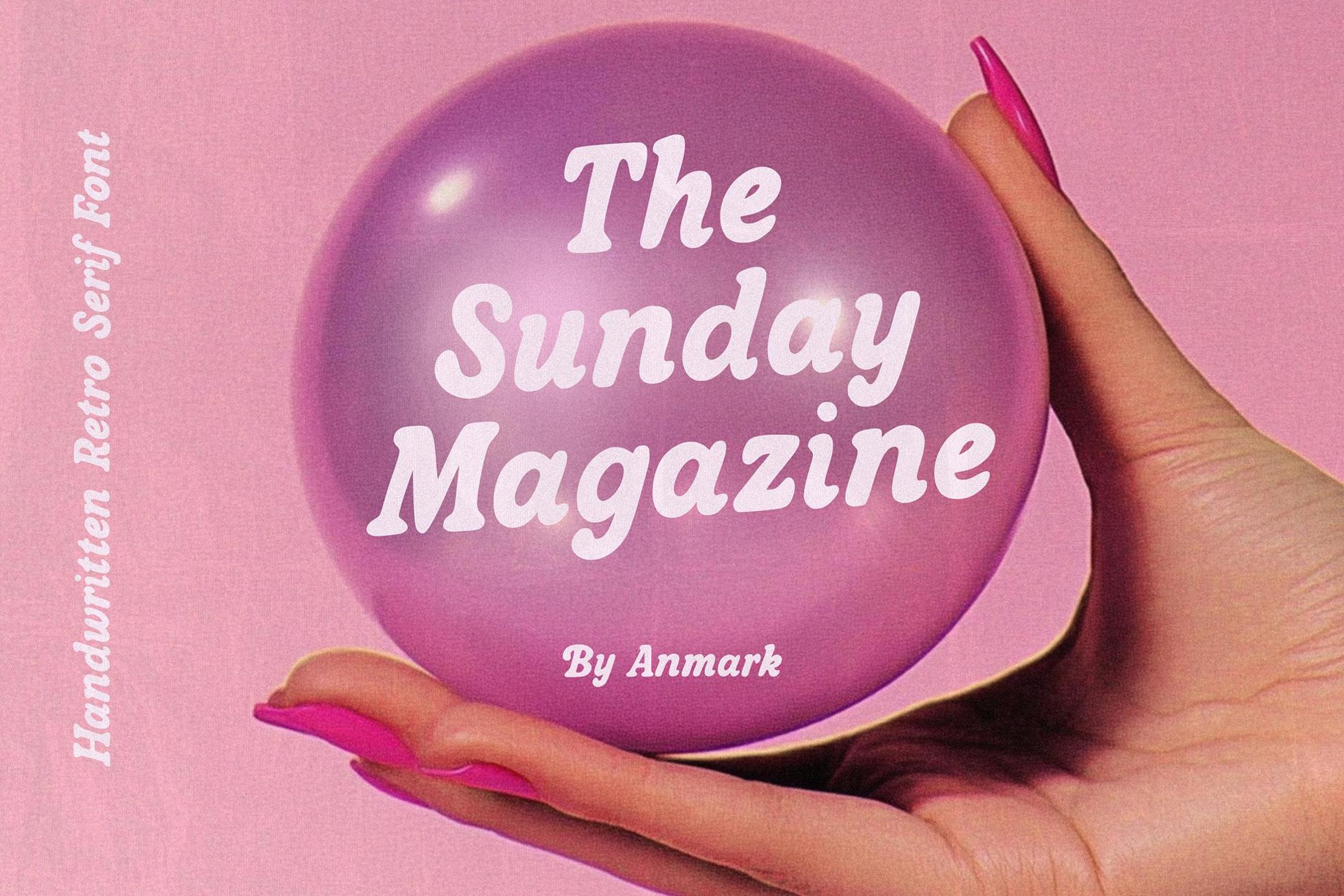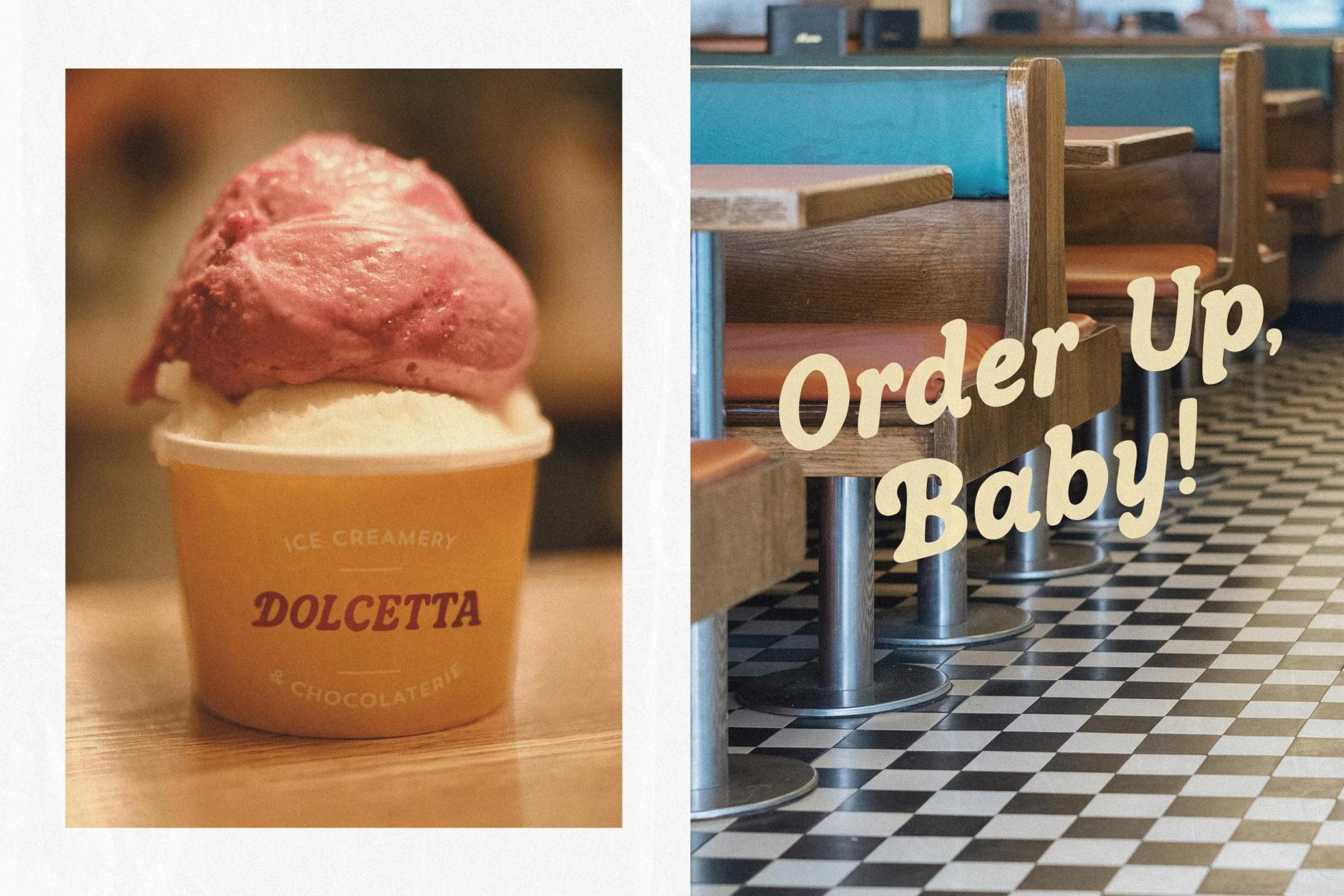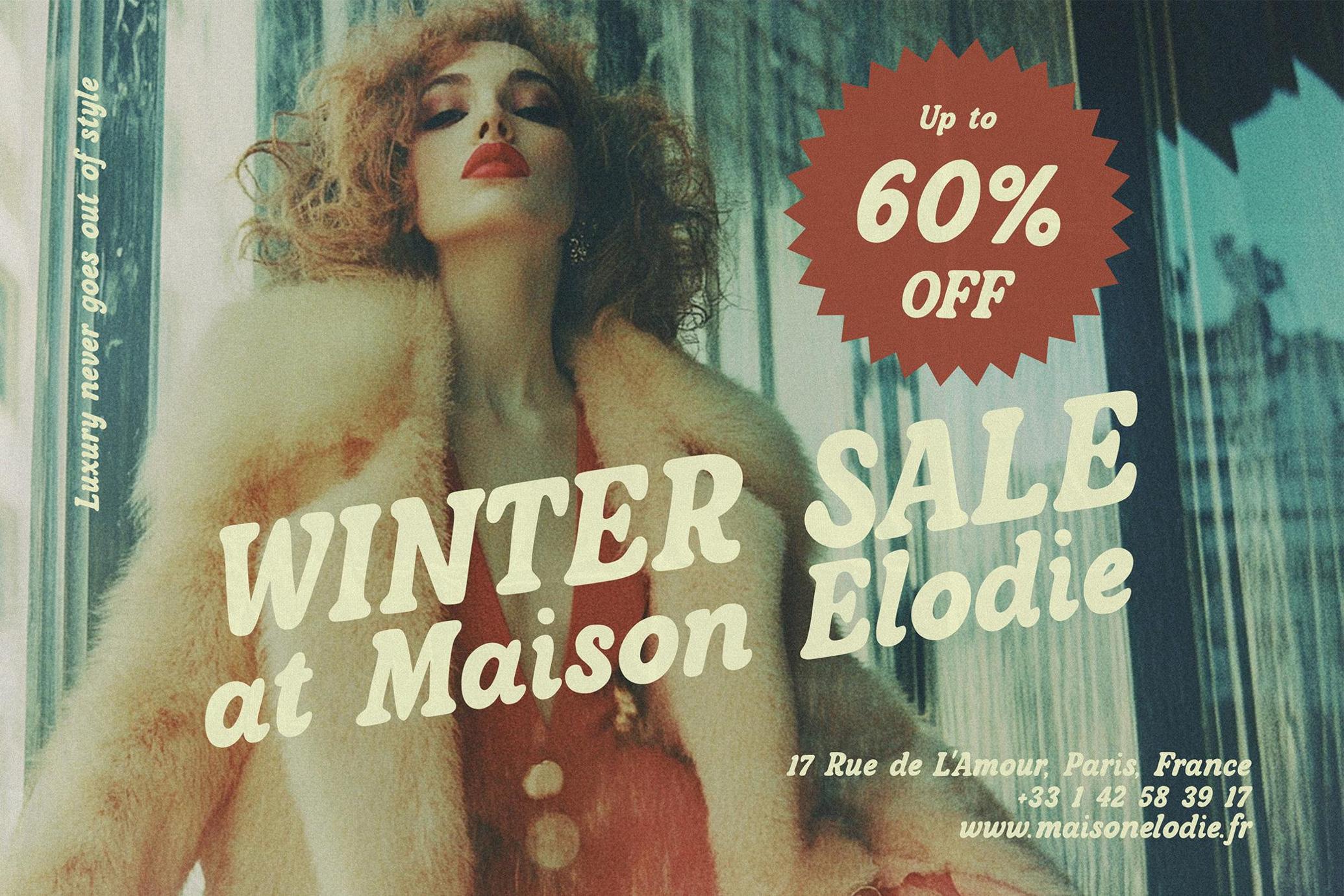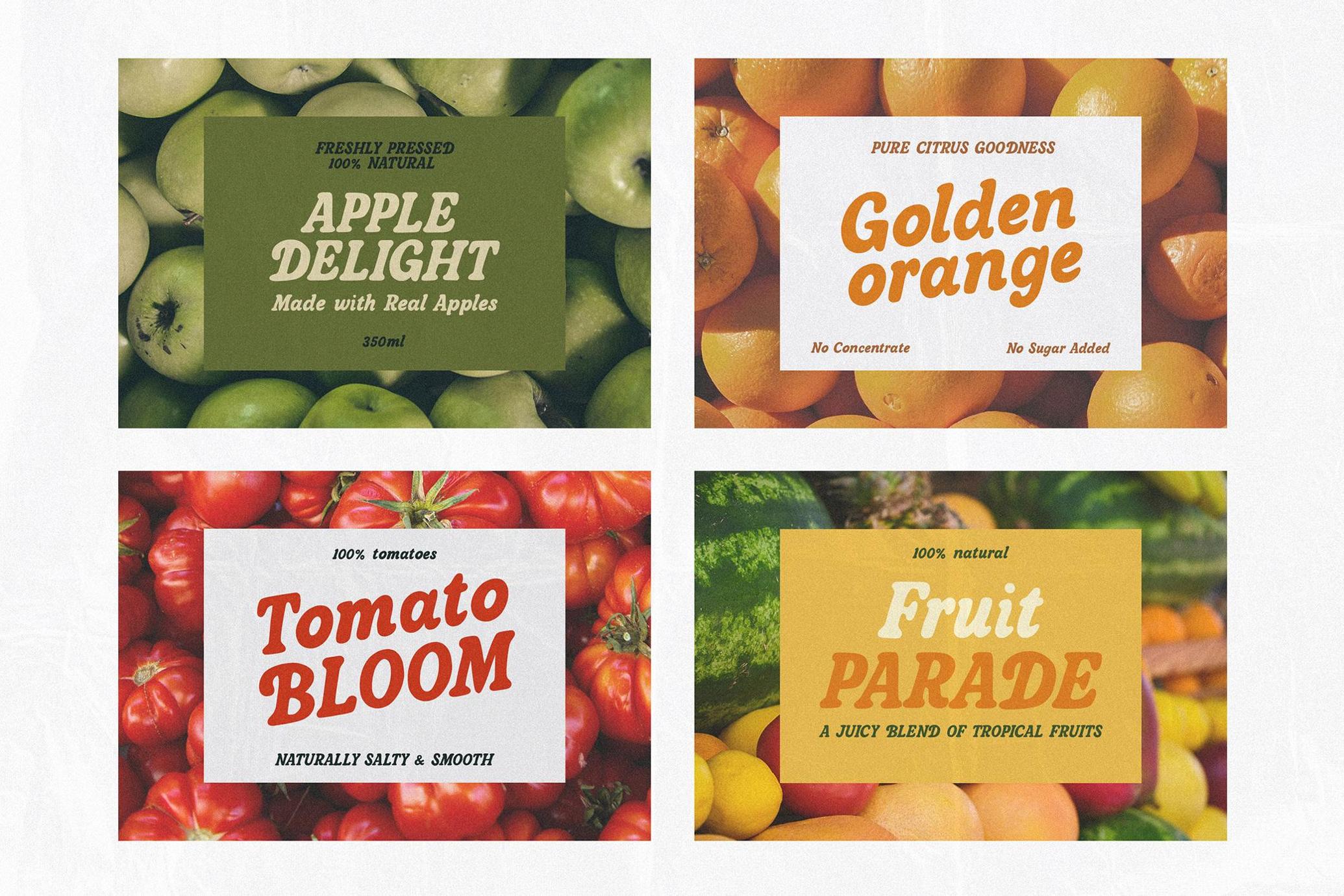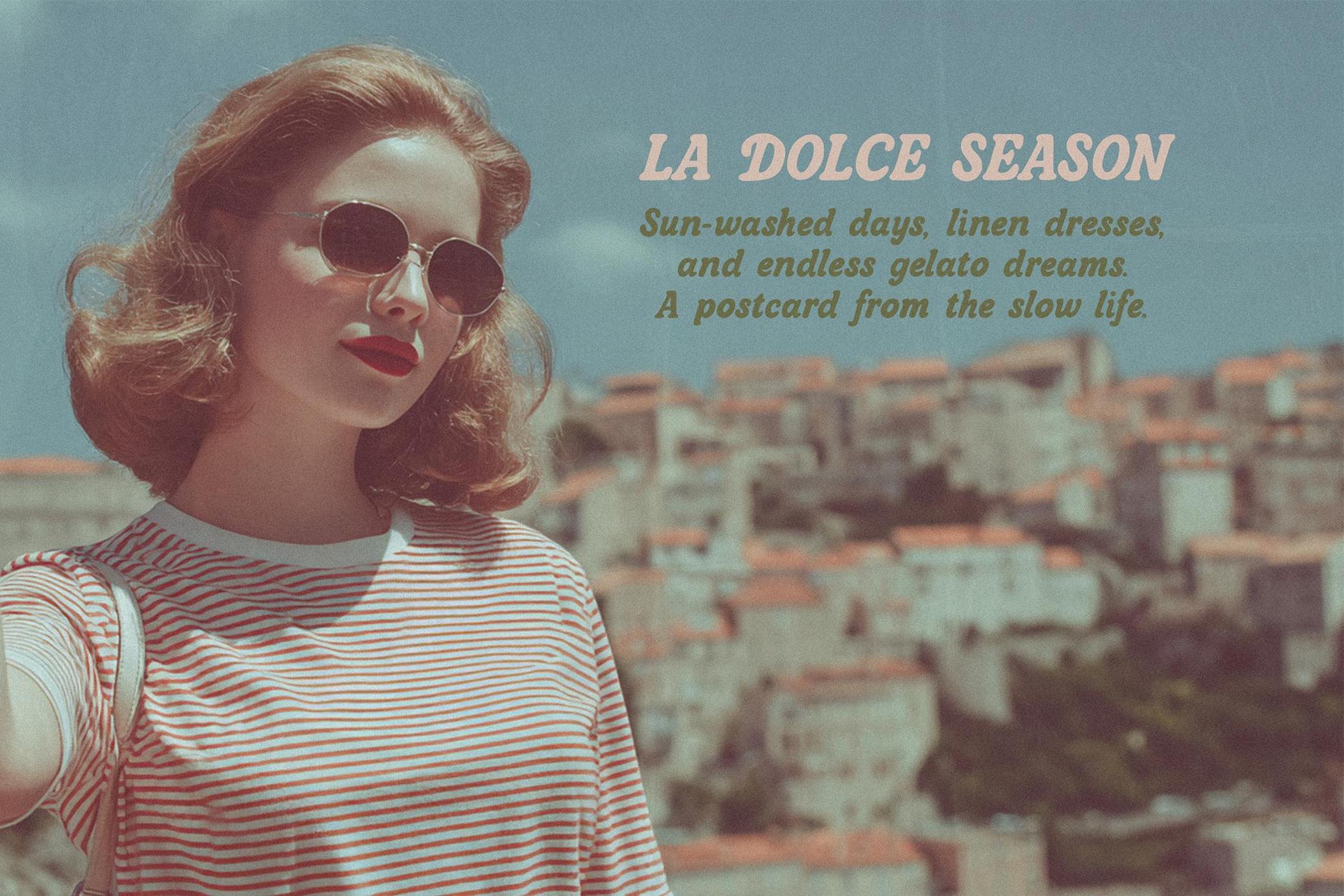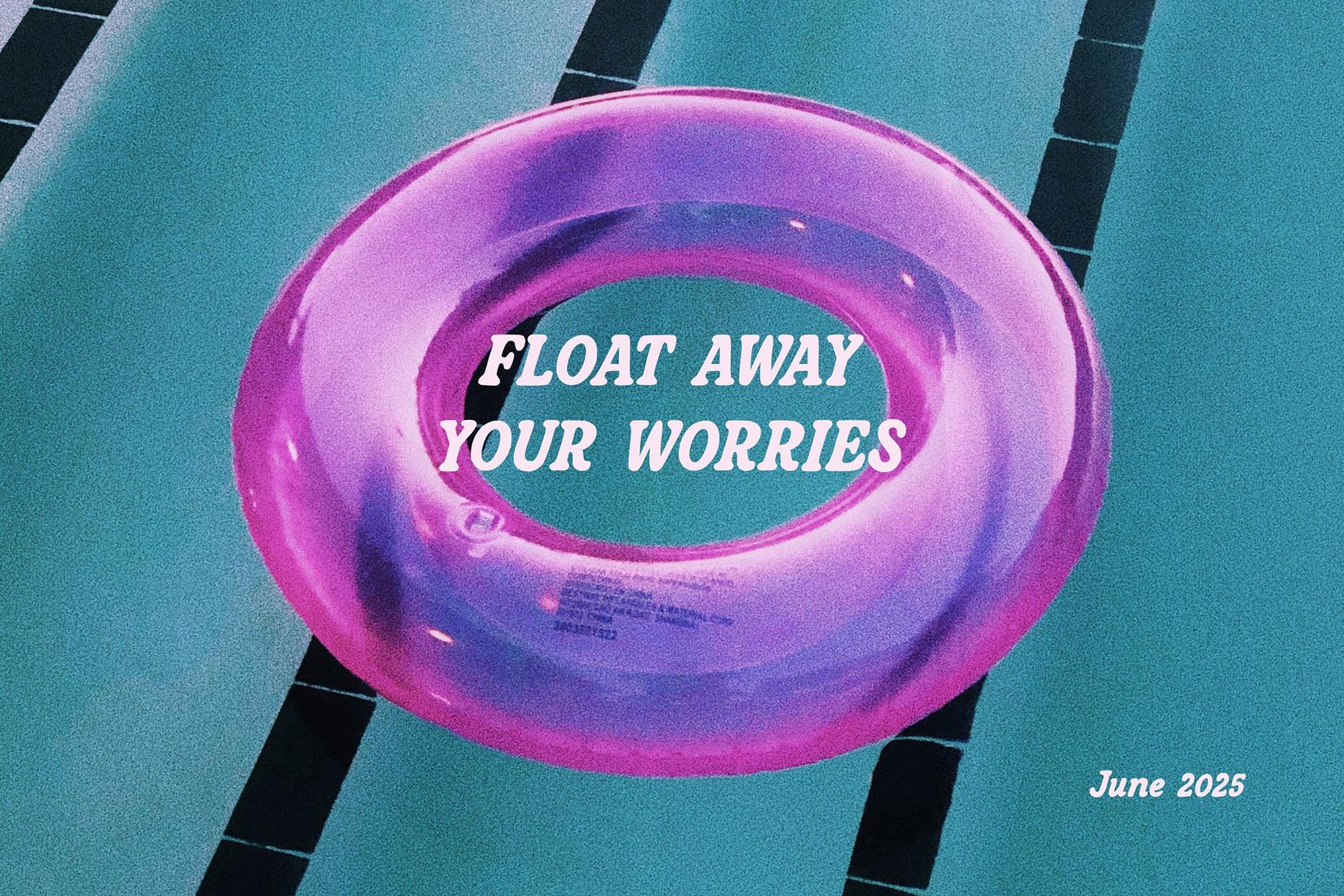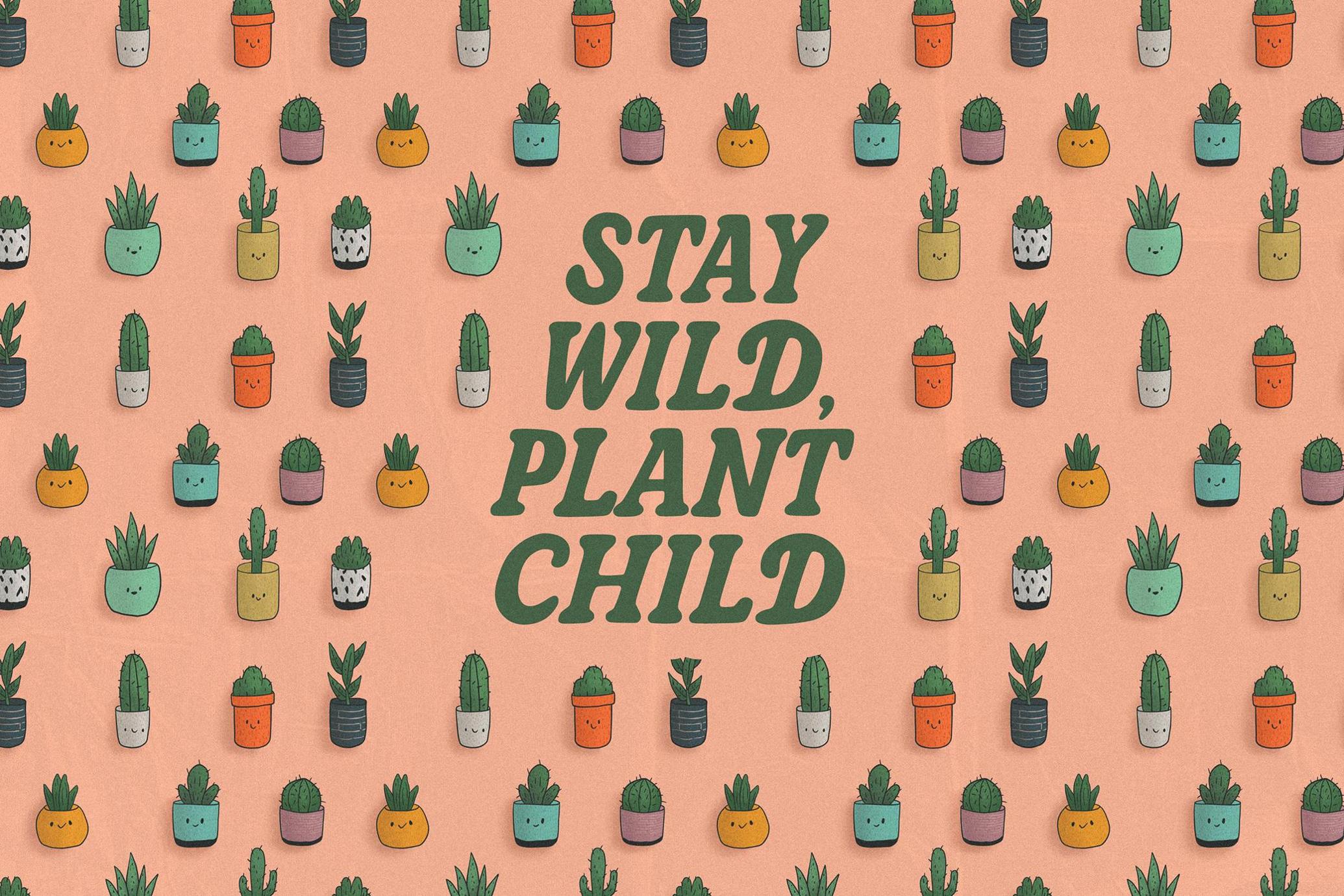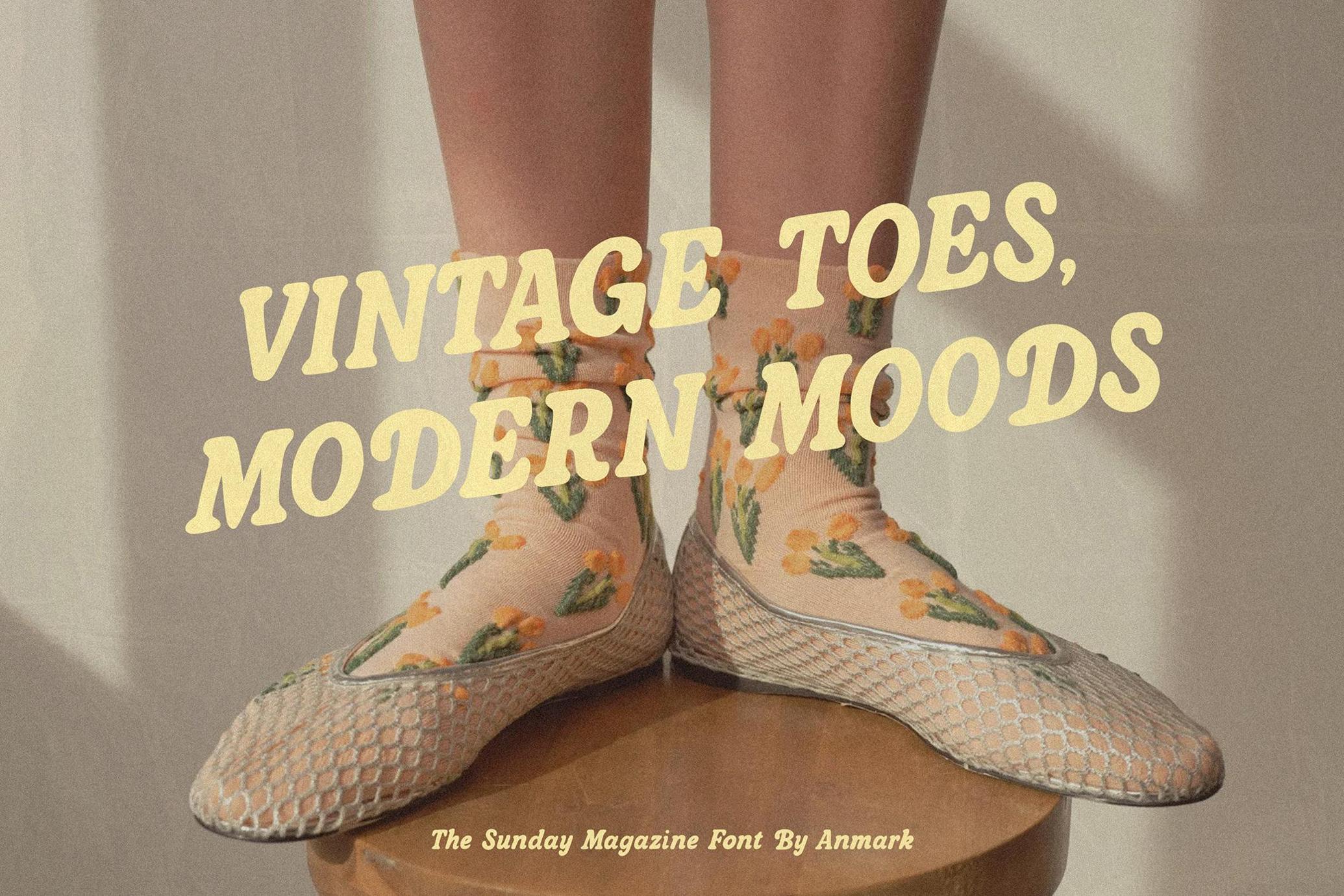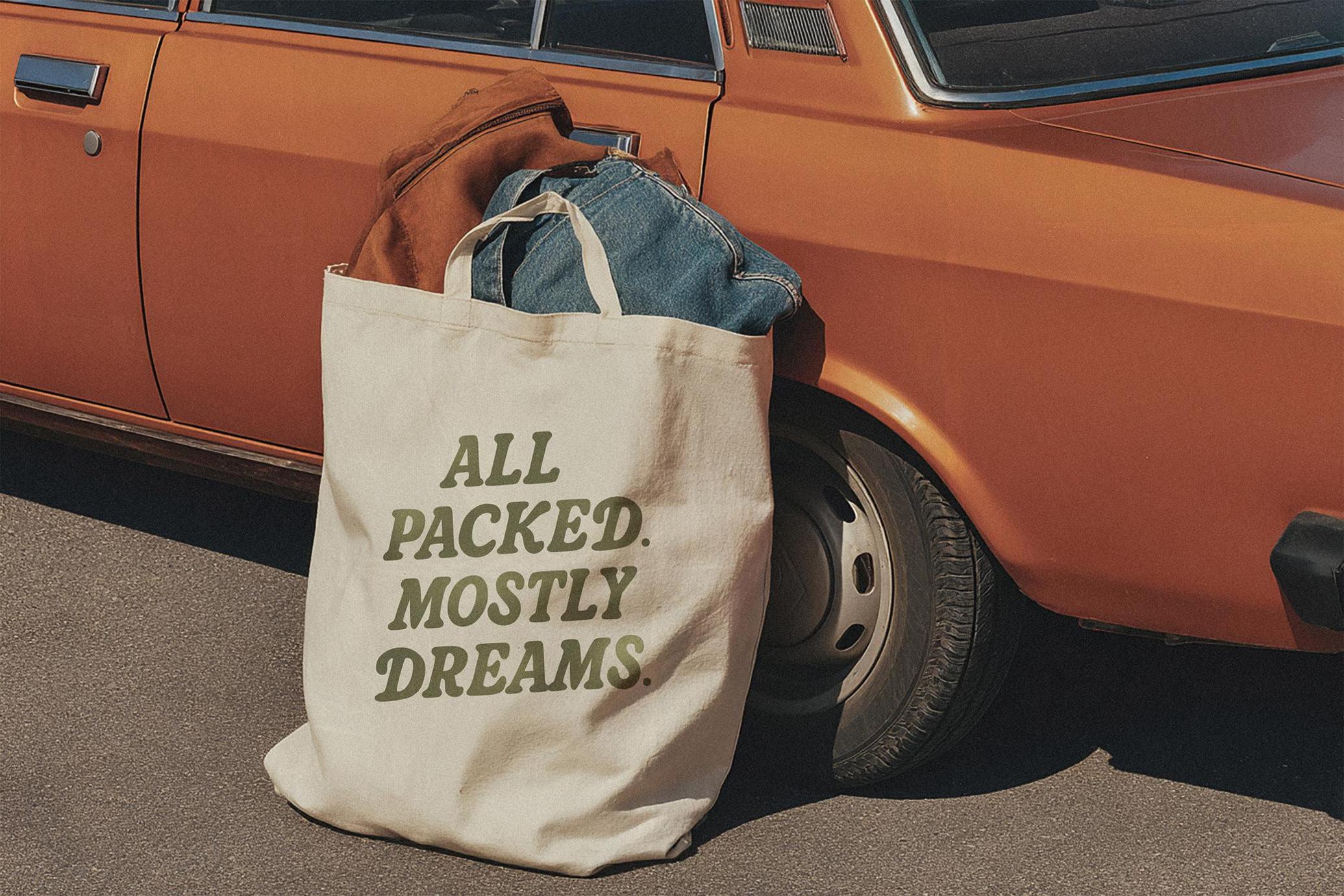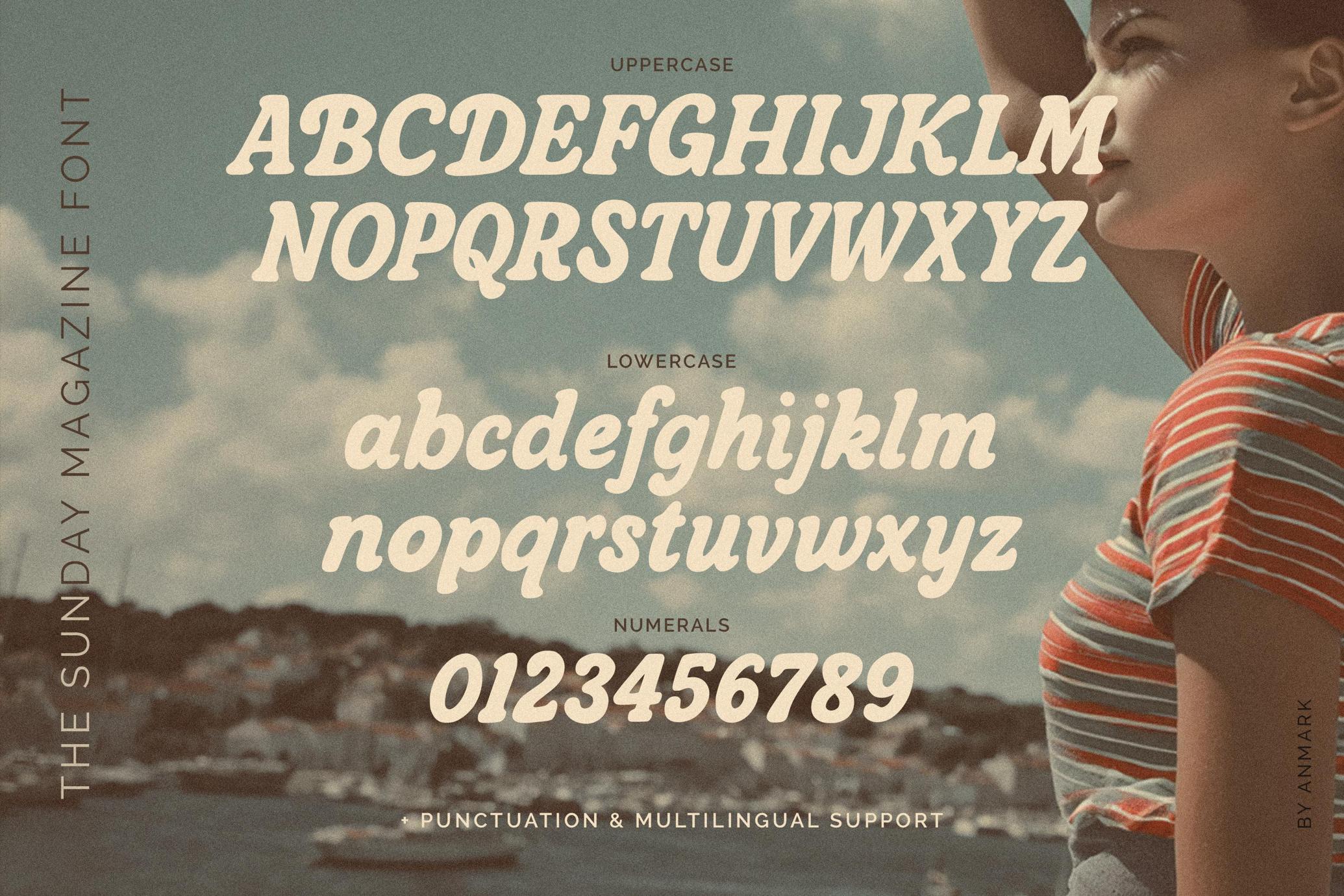
The Sunday Magazine — Retro Font
The Sunday Magazine font pulls most of its visual cues from the 1970s — especially the latter half of the decade. It's not a strict revival, though. The rhythm and spacing feel subtly modern, making it more of a contemporary reinterpretation of '70s retro rather than a faithful reproduction. It's as if The Gentlewoman meets vintage Seventeen with a dash of Parisian postcard.
The font includes uppercase and lowercase alphabets, numerals, full punctuation, and multilingual support. Each letterform carries the vibe of old editorial headlines, balanced with a casual tilt that keeps it approachable and contemporary. Altogether, it makes the font ideal for print-forward design work and tactile experiences: cafe menus, boutique packaging, and slow-living lifestyle brands. Use it for wedding paper goods, poster art, quote cards, seasonal promotions, or product labels that lean into personality. It also suits editorial spreads, music zines, shopfront decals, and curated social posts with a retro mood.